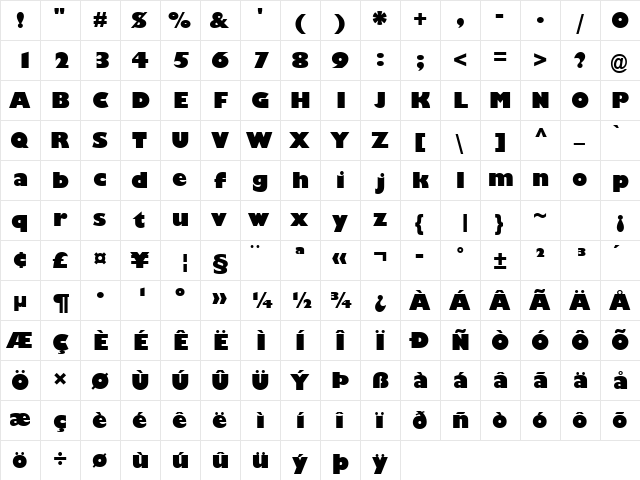
URWGalaxieNo2TUlt Regular
Design Context for URWGalaxieNo2TUlt Typeface
URWGalaxieNo2TUlt offers clean, dependable letterforms without strong stylistic allegiance, making it a practical choice for designers who need flexibility.